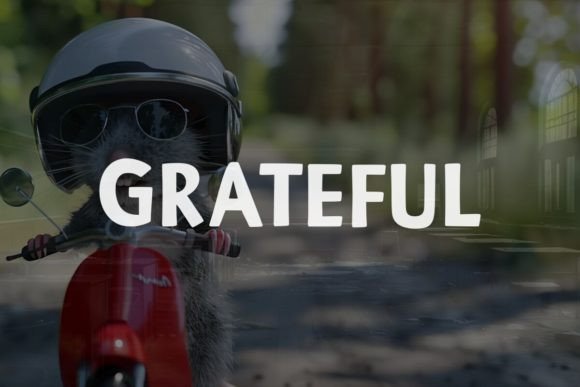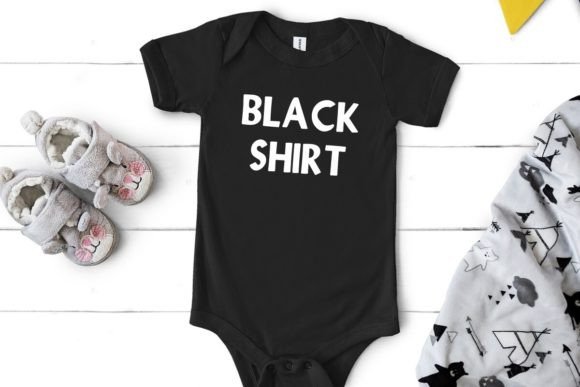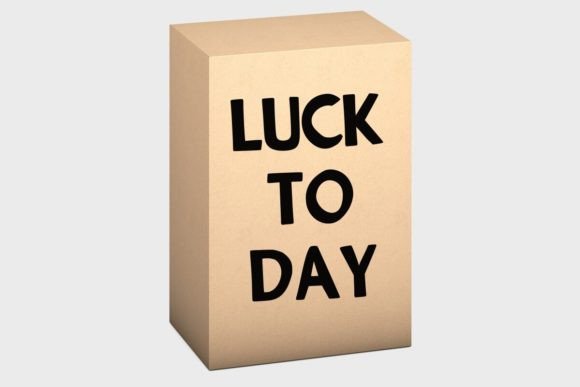
Big Mouse is a gorgeous and friendly display font that conveys impeccable joy.
Whether you’re using it for crafts, digital design, presentations, or greeting cards, design t-shirts, this font has the potential to become your favorite go-to font for each of your children projects .
Big Mouse Font offers exceptional quality and versatility, making it a valuable addition to your design toolkit. Whether you’re creating for personal projects or commercial use, Big Mouse Font delivers professional results.